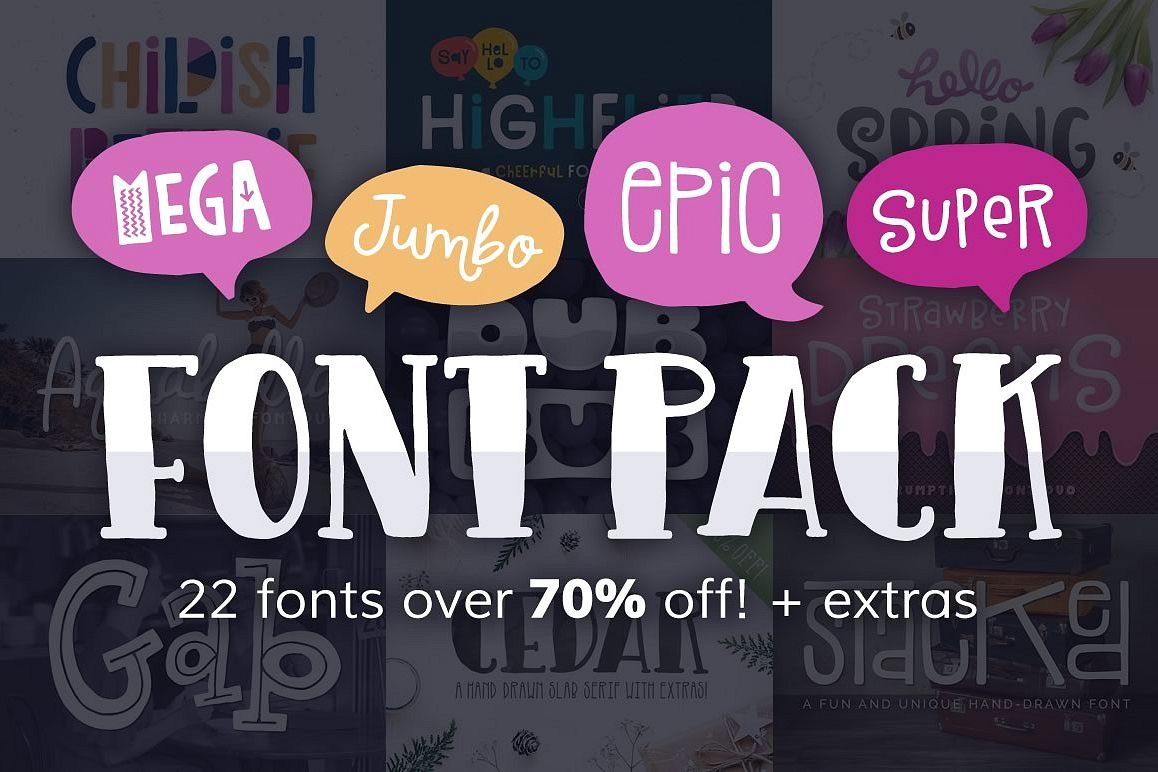
INTRODUCING THE MEGA FONT PACK!! 22 super fun, unique, and playful hand-drawn fonts at over 70% off! Also thrown in as a bonus are a bunch of fun doodles that pair perfectly with the fonts. A great bundle for all font-lovers and anyone looking to add a touch of personality to their projects.